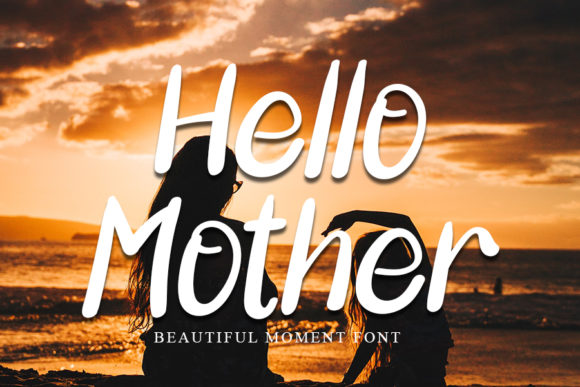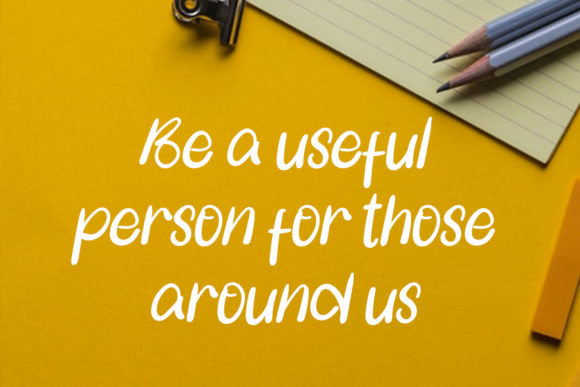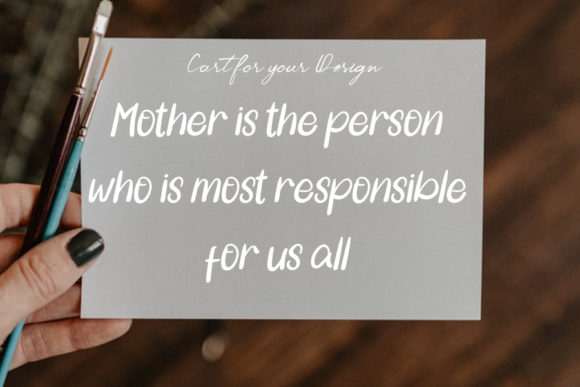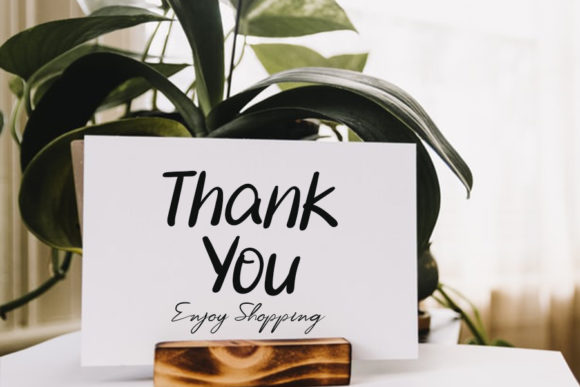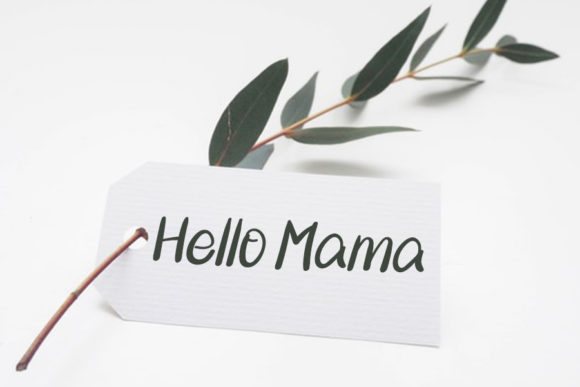
Hello Mother Font
About Hello Mother Font
Hello Mother is a flowing and well balanced handwritten font. Dainty and joyful, this font will be ideal for writing neat cards or any other design that may need a customized touch!